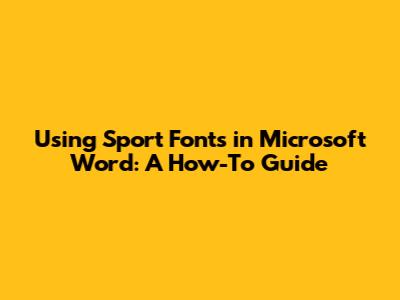
- Boldness: Sport fonts often need to be bold and impactful to convey strength and energy. Look for fonts with thick strokes and strong letterforms.
- Dynamic Style: Fonts that have a sense of movement or speed can be perfect for sports-related designs. Think about fonts with slanted or italicized elements.
- Readability: While style is important, don't sacrifice readability. Make sure the font is easy to read, especially if it's going to be used for body text.
- Versatility: Choose a font that works well in a variety of sizes and contexts. It should look good in headlines as well as in smaller text blocks.
- Bebas Neue: A clean and modern sans-serif font that's great for headlines and titles.
- Oswald: Another excellent sans-serif option with a slightly condensed design, perfect for fitting more text into a limited space.
- Roboto: A versatile and highly readable font that works well for both headlines and body text.
- League Gothic: A classic condensed sans-serif font with a vintage athletic feel.
- Impact: A bold and powerful font that's sure to grab attention.
- Open Microsoft Word: Launch Microsoft Word and open the document you want to edit.
- Select the Text: Highlight the text you want to change the font for.
- Choose the Font: Go to the "Home" tab in the ribbon, and find the font dropdown menu (it usually shows the current font, like "Calibri"). Click the dropdown to open the font list.
- Find Your Font: Scroll through the list to find the sport font you installed. If the list is long, you can start typing the name of the font to quickly find it.
- Apply the Font: Click on the font name to apply it to the selected text. Voila! Your text is now sporting a brand-new look.
- Team Newsletters: Use a bold sport font for the headlines and titles of your team newsletter. This will give it a dynamic and energetic feel that captures the spirit of the team.
- Sports Flyers and Posters: When designing flyers or posters for sports events, use a striking sport font for the main headings to grab attention. Pair it with complementary fonts for the body text to ensure readability.
- Awards and Certificates: Create a sense of accomplishment by using an elegant sport font for the names and titles on awards and certificates. This adds a touch of sophistication while still maintaining the sports theme.
- Scoreboards and Schedules: Design your own scoreboards and schedules using a clear and legible sport font. This makes it easy for players and fans to read the information at a glance.
- Personalized Gear Designs: If you're designing personalized sports gear, such as jerseys or t-shirts, use a unique sport font to add a custom touch. This helps create a sense of identity and pride for the team.
- Contrast is Key: Choose fonts that have enough contrast to create visual interest. For example, pair a bold sans-serif sport font with a clean and simple serif font for the body text.
- Consider Hierarchy: Use different fonts for different levels of headings to create a clear visual hierarchy. For example, use a bold sport font for the main headings and a less prominent font for the subheadings.
- Limit the Number of Fonts: As a general rule, try to limit the number of fonts you use in a single document to two or three. Using too many fonts can make your document look cluttered and unprofessional.
- Test and Refine: Experiment with different font pairings to see what works best for your specific project. Don't be afraid to try new things and refine your choices until you achieve the desired look.